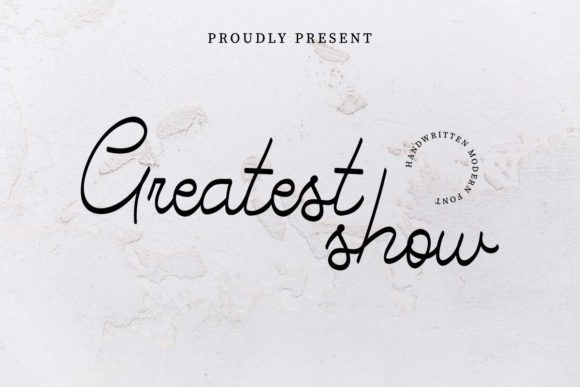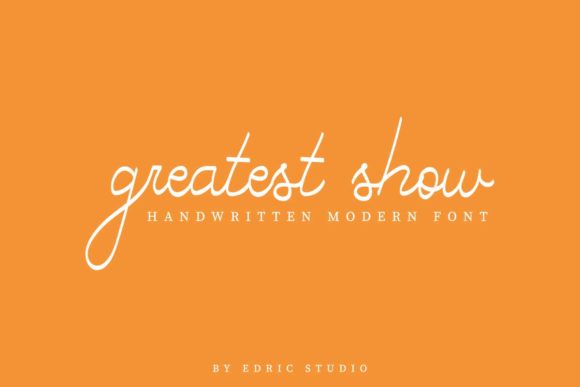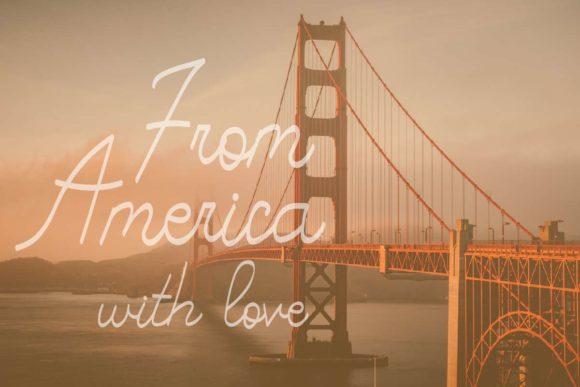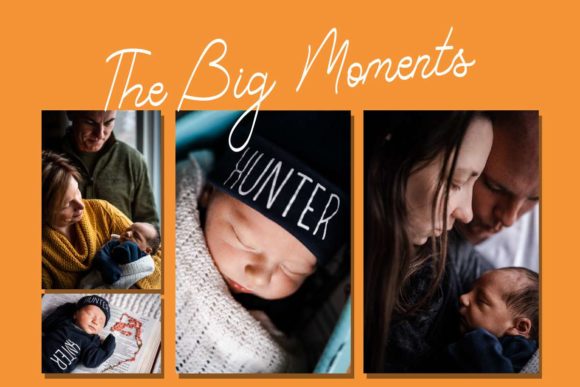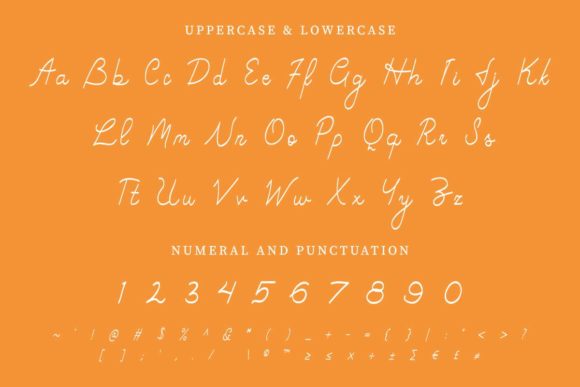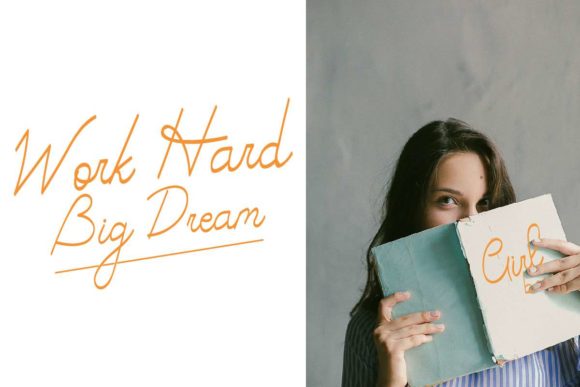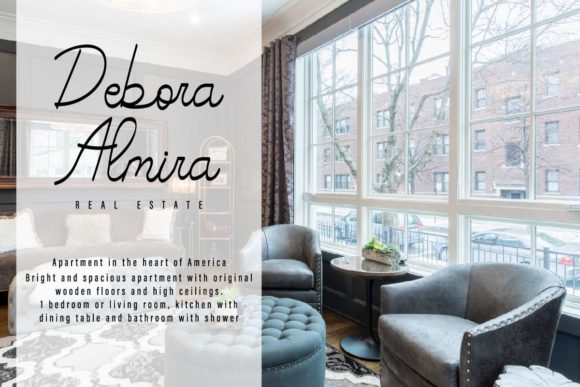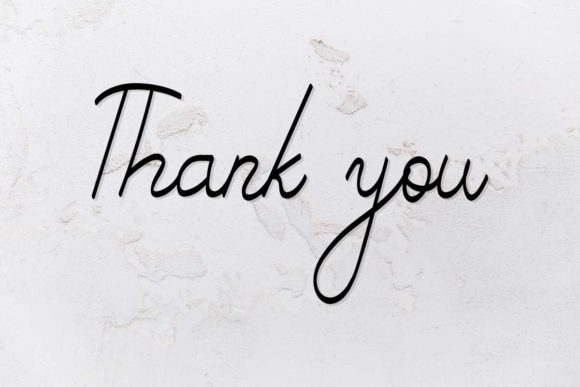
Greatest Show Font
About Greatest Show Font
Greatest Show is a flowing handwritten font, described by an elegant touch, perfect for your favorite projects. Fall in love with its incredibly distinct and timeless style and use it to create spectacular designs!